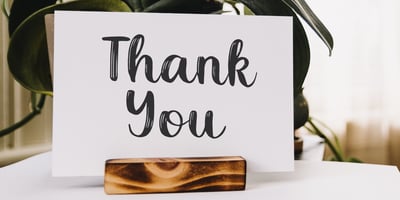
Selatine
Selatine font
Selatine Font Family was designed by Pavel Larin and published by Larin Type Co. Selatine contains 1 styles and family package options. Selatine – a handwritten bold brush font with streaked. Fall in love with its incredible charm, and turn any design idea into a stunner. Use this font for branding or create a logo, beautiful frame for your home, decorate your any project. Or just use for your small business, book covers, stationery, marketing, blog, magazines and more.